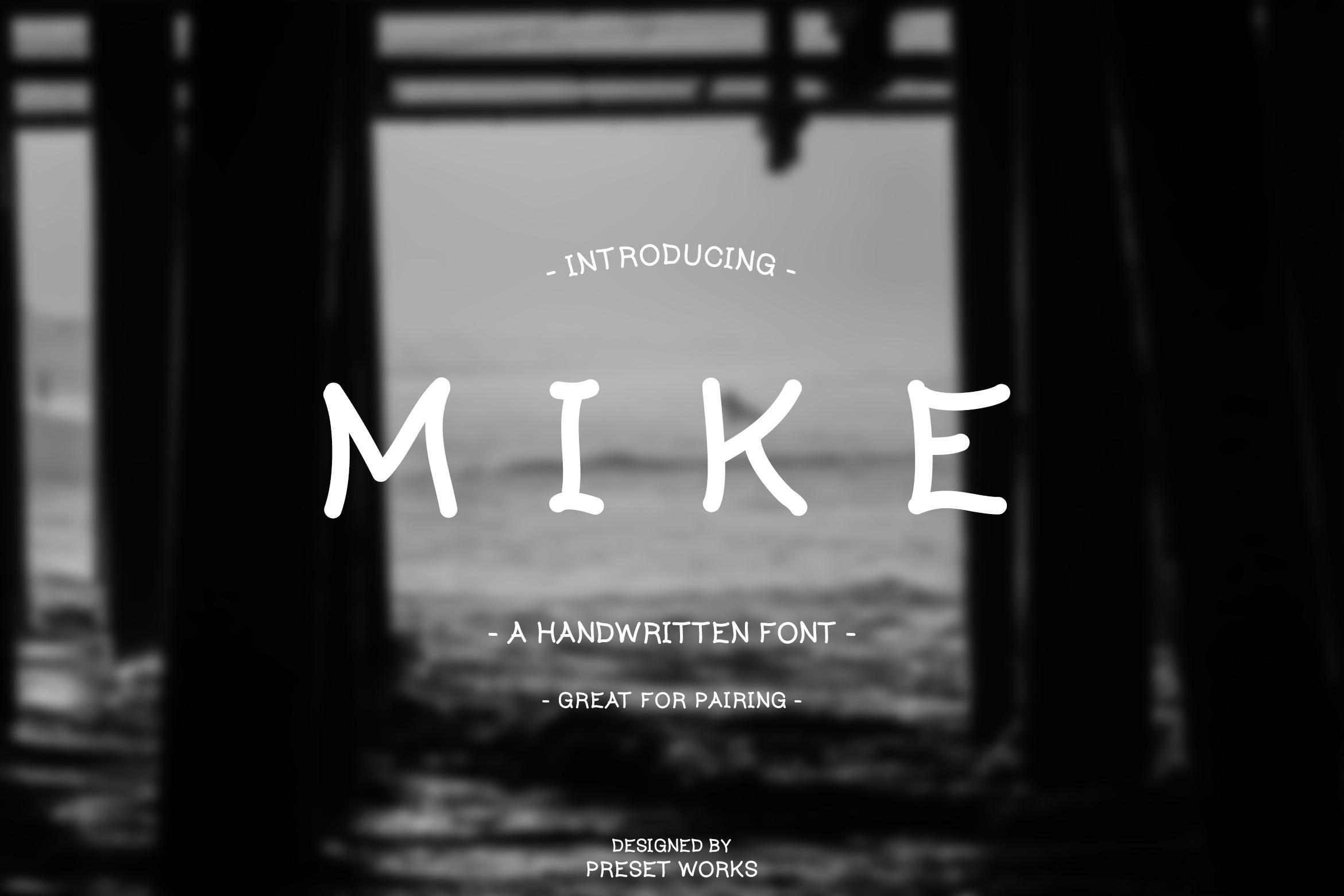
Mike - The Handwritten Font
Hello font lover. My name is Mike, I'm a lovable handwritten font that has been designed especially for your use. I look amazing on your poster and card designs. I also work wonders on your very personal branding. I am also very modest.
What you get - Ok we're in this together, you get love and... oh wait that's not what you want me for. With me you get all standard characters, lower and uppercase. You also get my numbers and punctuation.